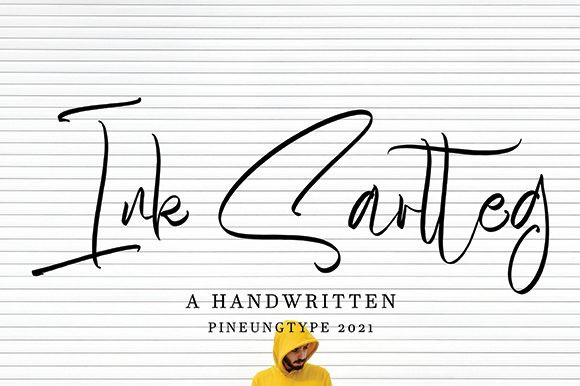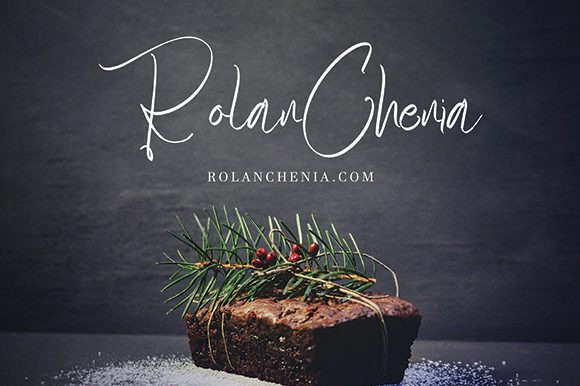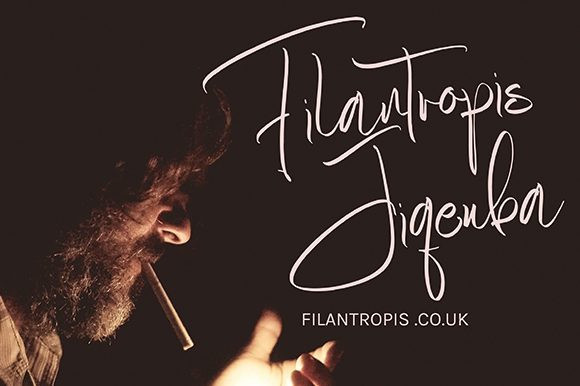
Ink Sartteg Font
Ink Sartteg is a flowing, stylish and flexible handwritten font. Warm and romantic, this font will turn each of your project ideas into real works of art. Have fun with this beautiful font and explore its endless variations.